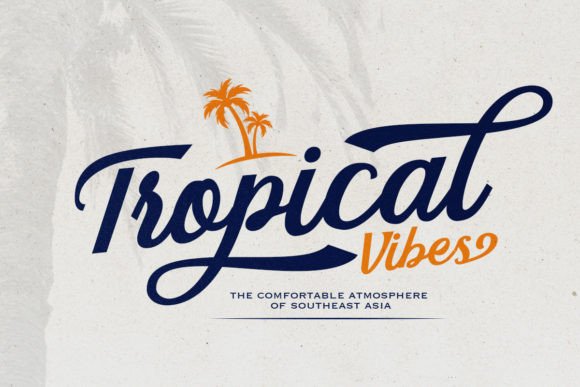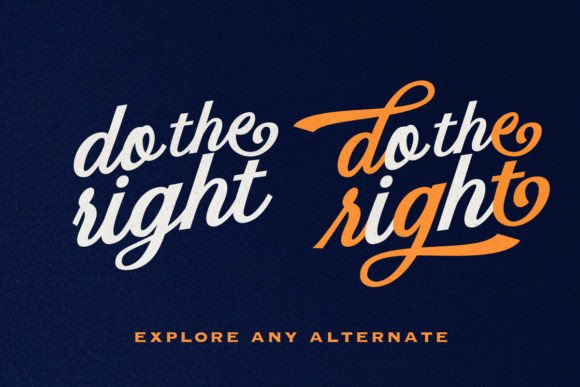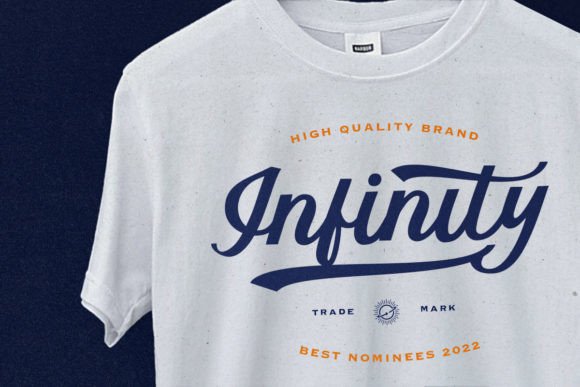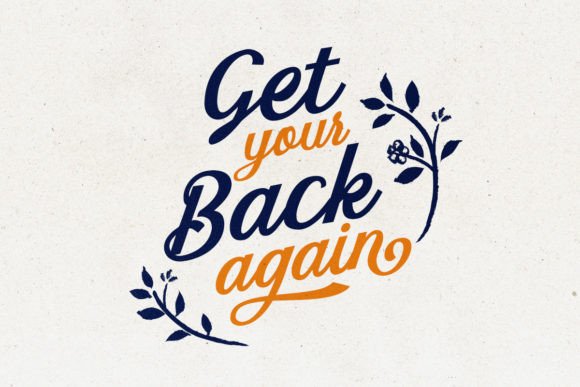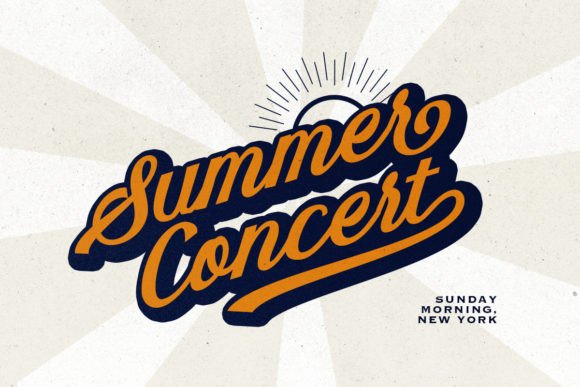
A Retro Script Font with Stylish Alternates
Starlake Font is a retro script typeface designed to give your projects a stylish and vintage feel. With its alternates and ending swashes, this font captures the essence of classic retro designs while maintaining a modern appeal. Whether you’re working on logos, branding materials, or merchandise, the Starlake Font adds a unique, eye-catching touch that will make your designs stand out with style and personality.
Perfect for Logos and Branding
For logos and branding, the Starlake Font brings a distinctive and memorable touch to your business identity. Whether you’re designing a personal brand logo, local business logo, or creative project identity, this font helps create a timeless, retro-inspired brand presence. Its stylish alternates and flowing swashes give your logo a unique flair, perfect for businesses that want to convey both professionalism and creativity.
Ideal for Apparel and Merchandise
The Starlake Font is great for apparel designs and merchandise. Whether you’re creating t-shirts, sweatshirts, or posters, this font’s retro and stylish appeal ensures that your products stand out in the market. Its alternates and ending swashes add a dynamic and vintage touch to your designs, making them perfect for custom clothing lines, streetwear brands, and special merchandise. With its bold style, the Starlake Font helps convey a sense of individuality and style in your products.
Great for Advertising and Promotional Materials
For advertising and promotional materials, the Starlake Font makes a strong statement with its retro flair and stylish appearance. Whether you’re designing flyers, posters, or social media graphics, this font adds a vintage, eye-catching touch that ensures your message stands out. The alternates and ending swashes give your designs a dynamic and engaging vibe, making it perfect for promoting events, products, and special offers.
Versatile, Legible, and Eye-Catching
Despite its stylish retro design, the Starlake Font remains legible and easy to use. The font’s well-balanced letterforms and clear strokes ensure that your text remains readable even at smaller sizes or in longer passages. Whether you’re using it for headlines, captions, or body text, this font strikes the perfect balance of creativity and readability, making it suitable for a wide range of design applications, from print to digital media.
The Starlake Font is easy to use and integrates smoothly into most design software. Whether you’re working on logos, branding, apparel designs, or social media content, this font ensures your designs look polished and professional while maintaining a unique and stylish touch. Its versatility makes it perfect for both print and digital media, giving you the flexibility to use it across various projects with ease.
Add Retro Style and Elegance to Your Designs with Starlake Font
If you’re looking for a retro script font that adds a stylish, vintage touch to your designs, the Starlake Font is the perfect choice. Whether you’re designing logos, branding materials, apparel, or advertisements, this font will help you create memorable, creative designs with retro flair. Let the Starlake Font elevate your projects and leave a lasting impression with its timeless appeal and stylish charm.